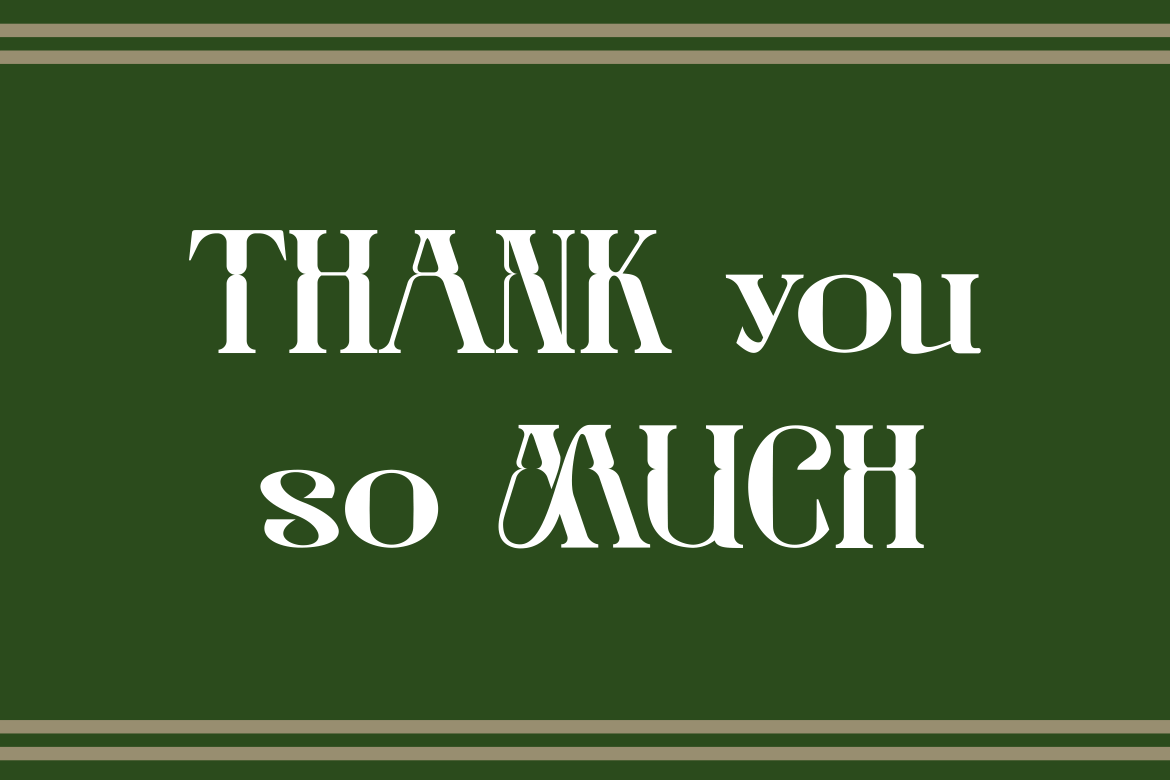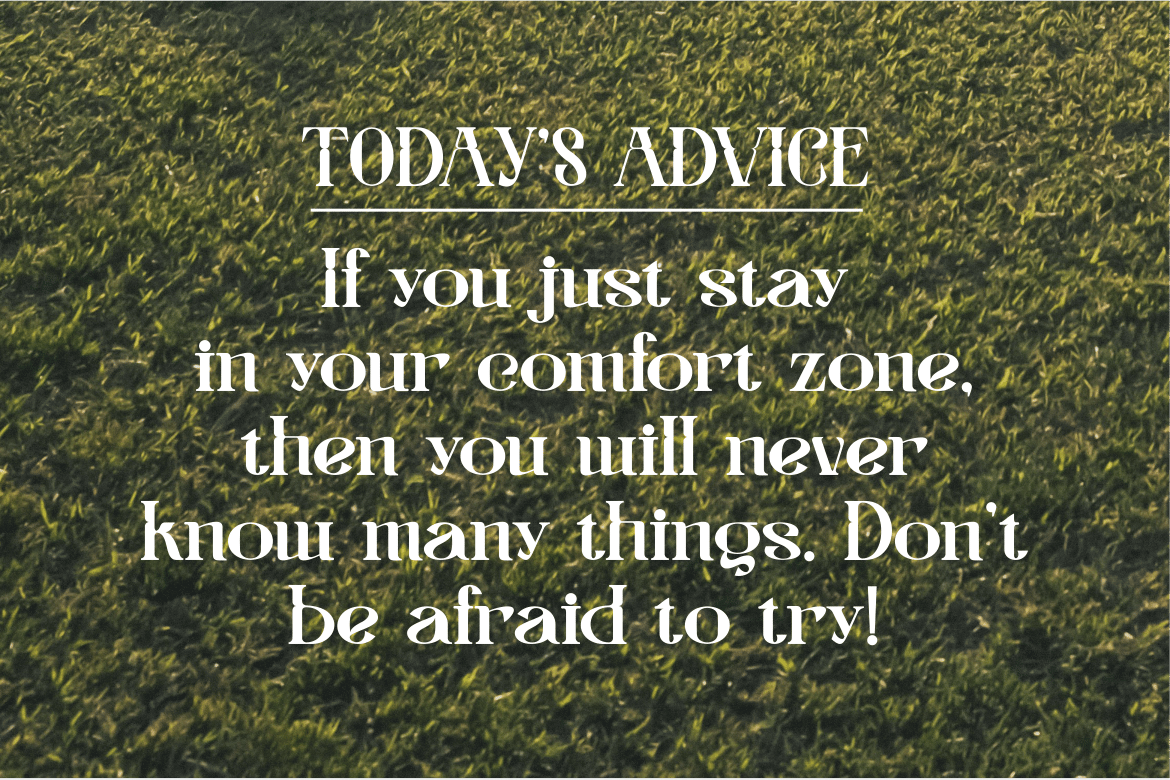
Megolf – Elegqant Serif Font
Megolf is a display serif with a lot of movement in it. Strokes swell and taper, terminals curl back on themselves, and letters such as the capital M and the lowercase g pick up loops that give the face a 1970s, Art Nouveau flavour. It still reads clearly in short phrases, as the golf-themed specimens show, because the basic letter shapes stay upright and familiar.
The face includes uppercase and lowercase letters, so you can set a full headline or a short quote rather than all-caps only. It is meant to be seen big: at small sizes the fine details close up, so treat it as a title font rather than a text face.
Best uses for Megolf
• Logos for golf clubs, cafés, salons and lifestyle brands
• T-shirt and merch prints with a retro look
• Event posters and book or album titles
• Short quotes and social media graphics
• Labels and packaging for craft products
Megolf has plenty of character, so pair it with something plain. Jost is a clean geometric sans that keeps body copy calm under a decorative title. If you want a serif for longer text, Lora has a gentle, bookish rhythm that sits well next to Megolf’s curves. For small caps, dates and labels, Montserrat in Medium spaced out a little works nicely.
What free font is similar to Megolf?
For a free, open-licence option with soft, flared serifs, try Fraunces in its heavier, softer settings, or Federant for a stronger Art Nouveau look. Neither copies Megolf’s curls exactly, but both share its retro warmth.
Does Megolf have lowercase letters?
Yes. The font includes both uppercase and lowercase letters, so you can set mixed-case headlines and short quotes, not just capitals.